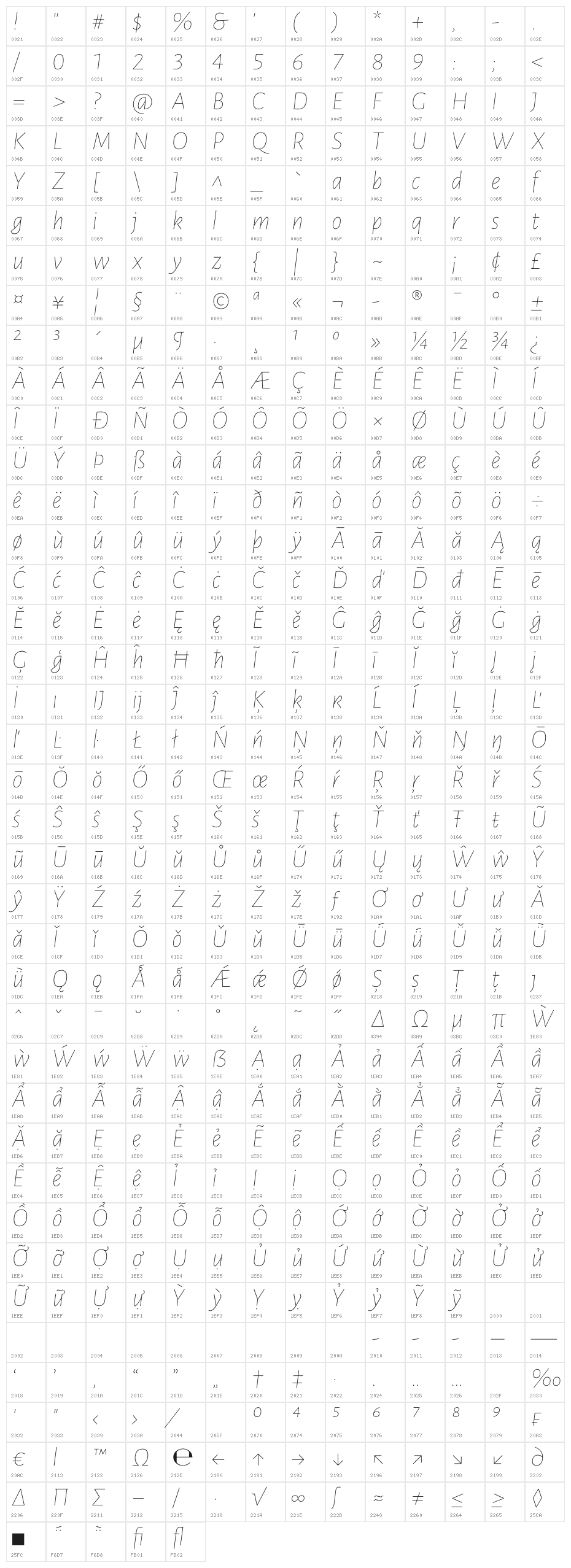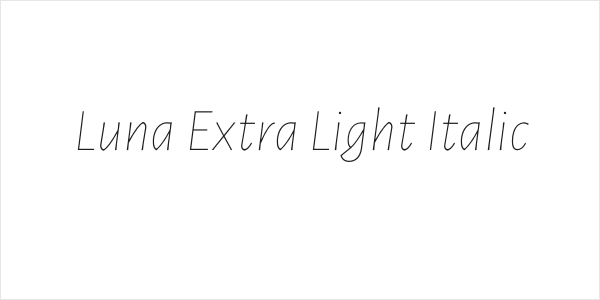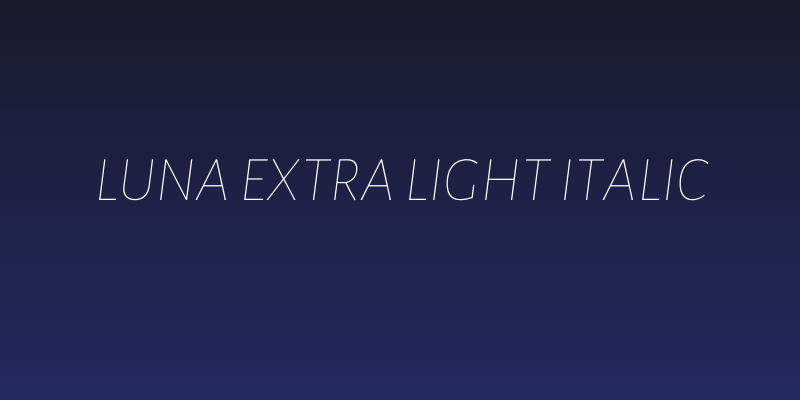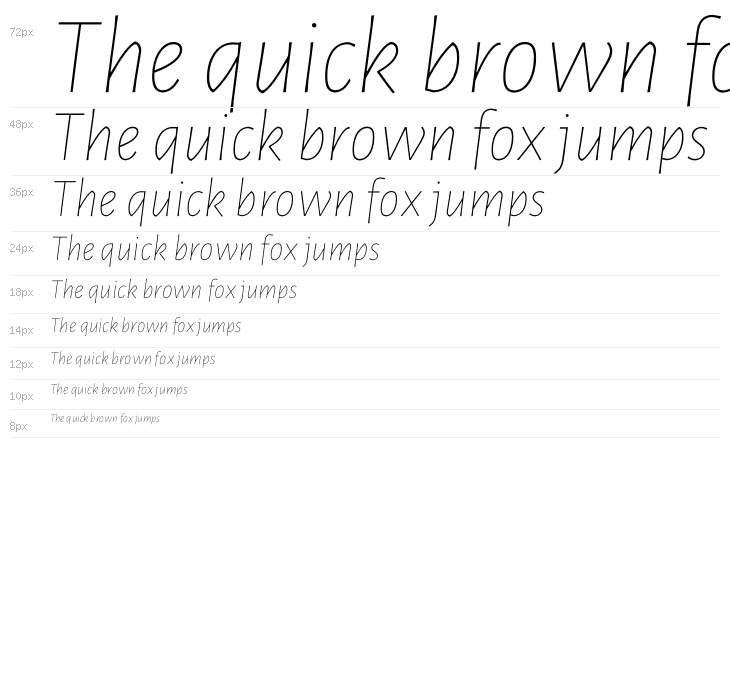
Luna Extra Light Italic Font
Luna Extra Light Italic Description
This font features a sleek and elegant design with a light and airy feel. The characters are delicately crafted with a slight slant, giving it an italicized appearance. The strokes are thin, contributing to its extra-light weight, and the overall look is modern and sophisticated. The uppercase and lowercase letters maintain a consistent style, with smooth curves and clean lines. The numerals and special characters are designed to complement the letters, maintaining the font's cohesive aesthetic. This font is ideal for projects that require a touch of elegance and modernity.
| Proposed Projects | Ideal for fashion magazines, elegant invitations, modern branding, and minimalist design projects. |